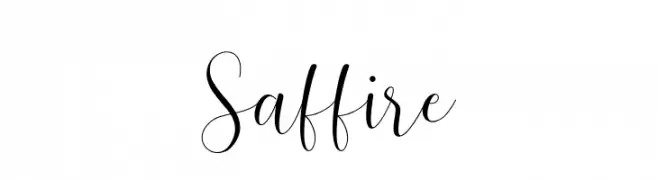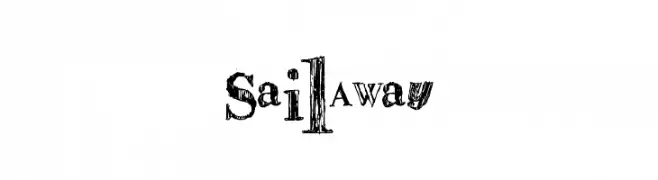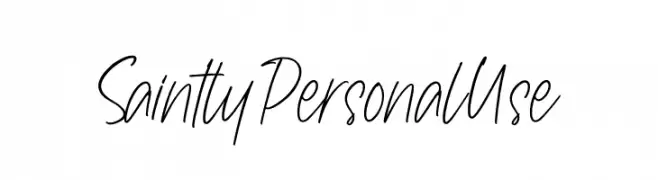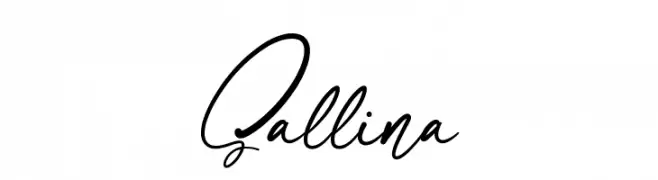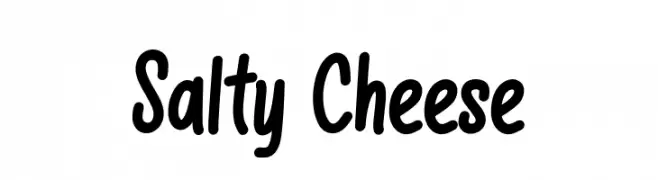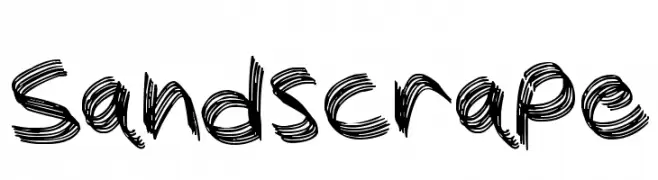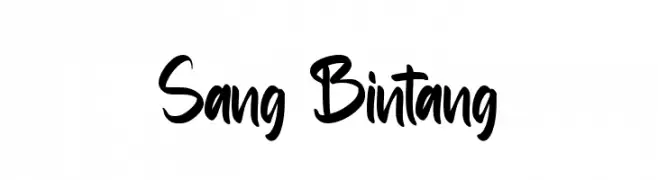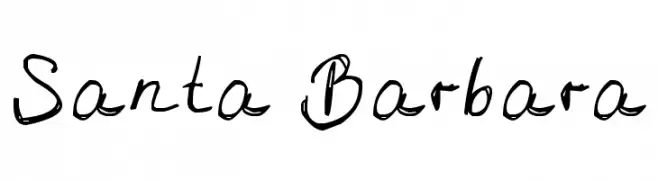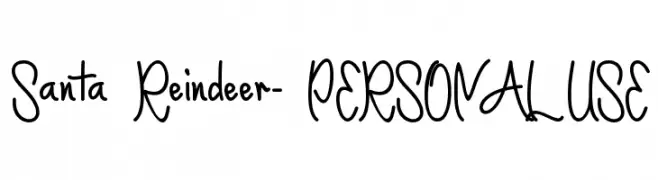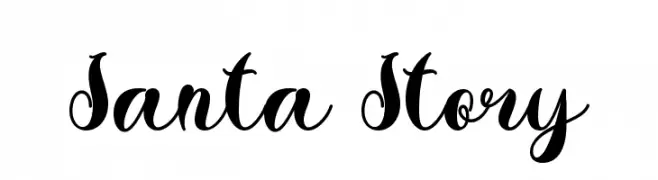
A graceful script font with flowing, cursive letters and delicate loops.
A whimsical, hand-drawn font with textured, sketch-like strokes.
A casual, handwritten font with a dynamic and flowing style.
A flowing, cursive script font with elegant, connected letters.
A lively, handwritten-style font with bold, consistent strokes and a casual, stylish appearance.
A bold, heavy font with unique character shapes and strong visual impact.
A playful, bold handwritten font with thick, rounded strokes.
A sketch-like, hand-drawn font with dynamic and textured strokes.
A bold, handwritten font with a playful and energetic style.
A playful, handwritten font with bold, uneven strokes and a dynamic flow.
Playful handwritten script with tall, narrow uppercase letters.
A whimsical and playful script font with decorative swashes.
A bold, brush-style script font with high contrast and dynamic strokes.
A gothic, decorative font with sharp, thorn-like edges and a dramatic style.
A lively, cursive script font with elegant, flowing connections.
A bold, medieval-inspired serif font with sharp, angular details.
A bold, rounded, and modern font with a playful geometric style.
A bold, playful font with rounded, bubble-like characters.
A modern, geometric font with a futuristic and sleek design.
A playful and elegant script font with decorative swirls and smooth flow.
A bold, jagged font with an eerie, horror-themed design.
A horror-themed font with dripping, eerie characters.
A bold, dripping font perfect for spooky Halloween designs.
An intricate, gothic-style font with dramatic flourishes and sharp edges.
A spooky, dripping font perfect for horror themes.
A bold, hollow, collegiate-style font with a geometric, block-like appearance.
A bold, outlined font with a collegiate style, perfect for impactful designs.
A bold, geometric font with a collegiate, sports-inspired style.
A dot matrix font with a retro, digital scoreboard style.
A whimsical, hand-drawn font with tall, narrow characters and a playful style.
A bold, jagged font with a scratch-like, distressed appearance.
A bold, brush-stroke font with high contrast and dynamic movement.